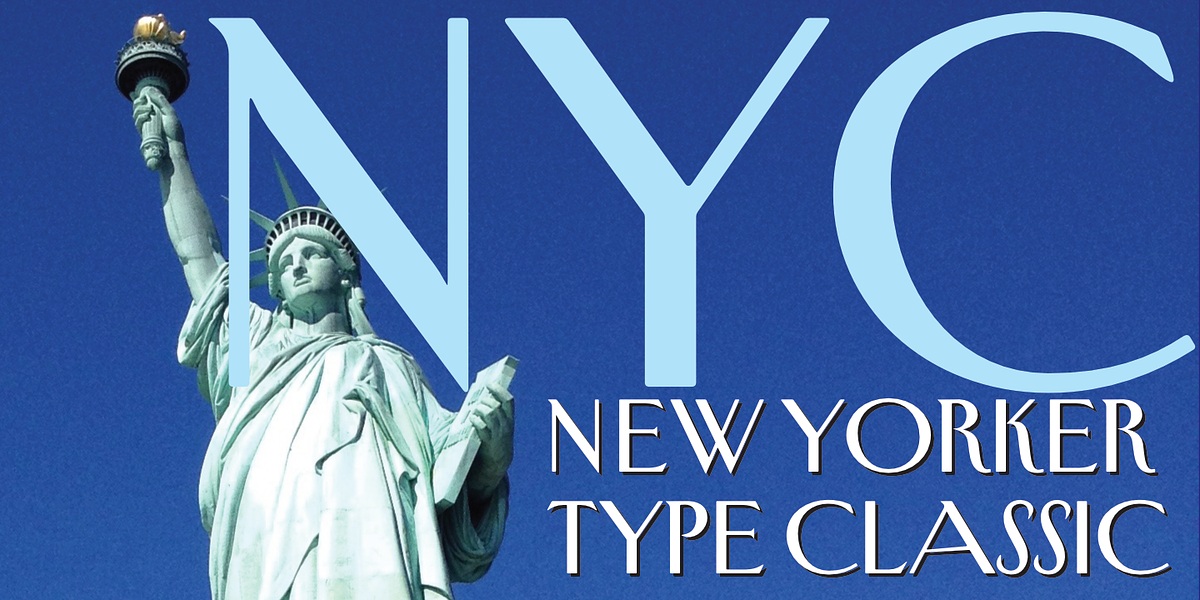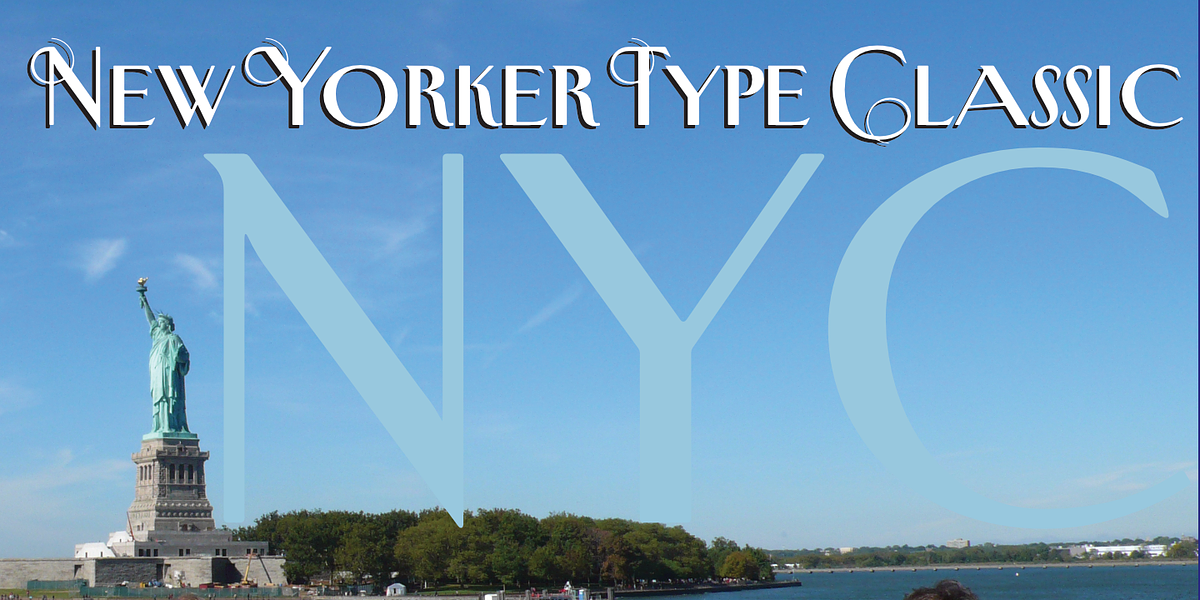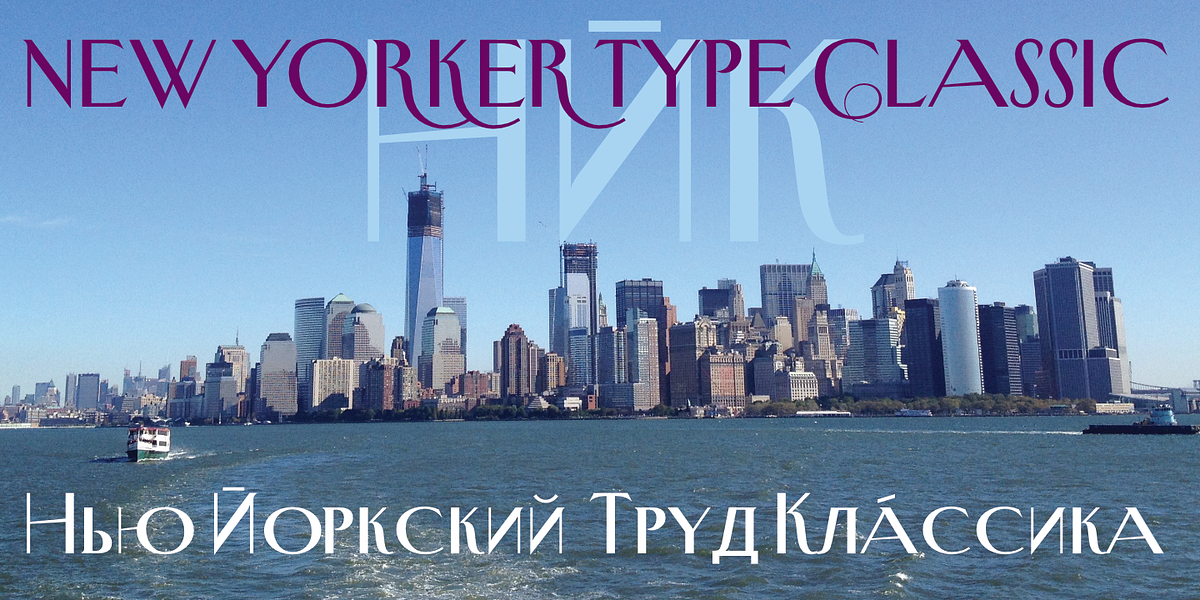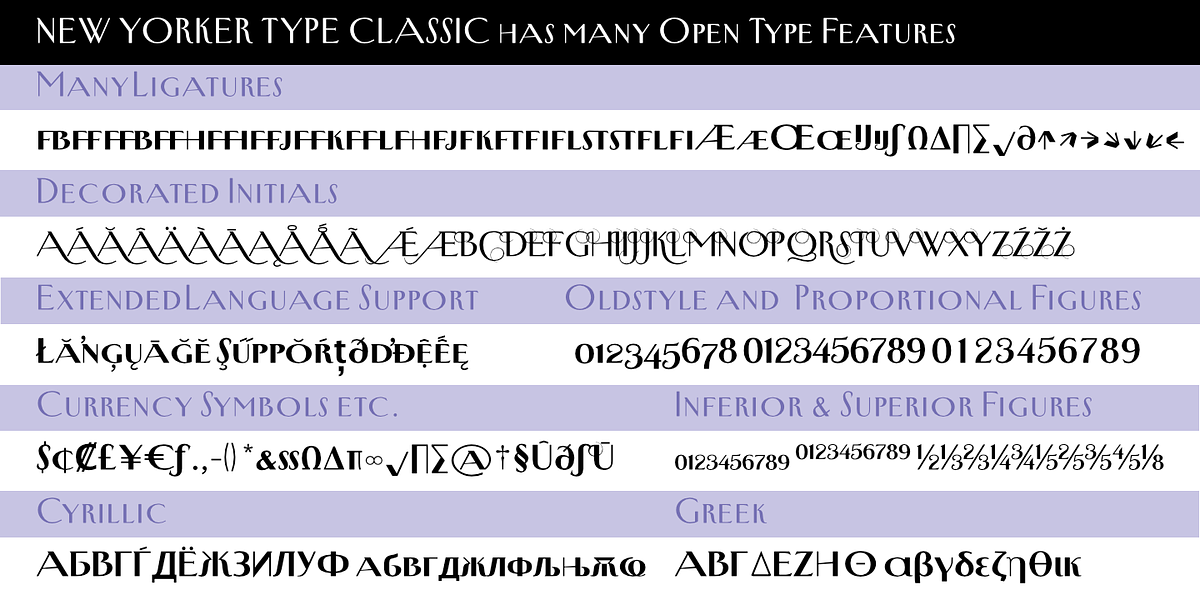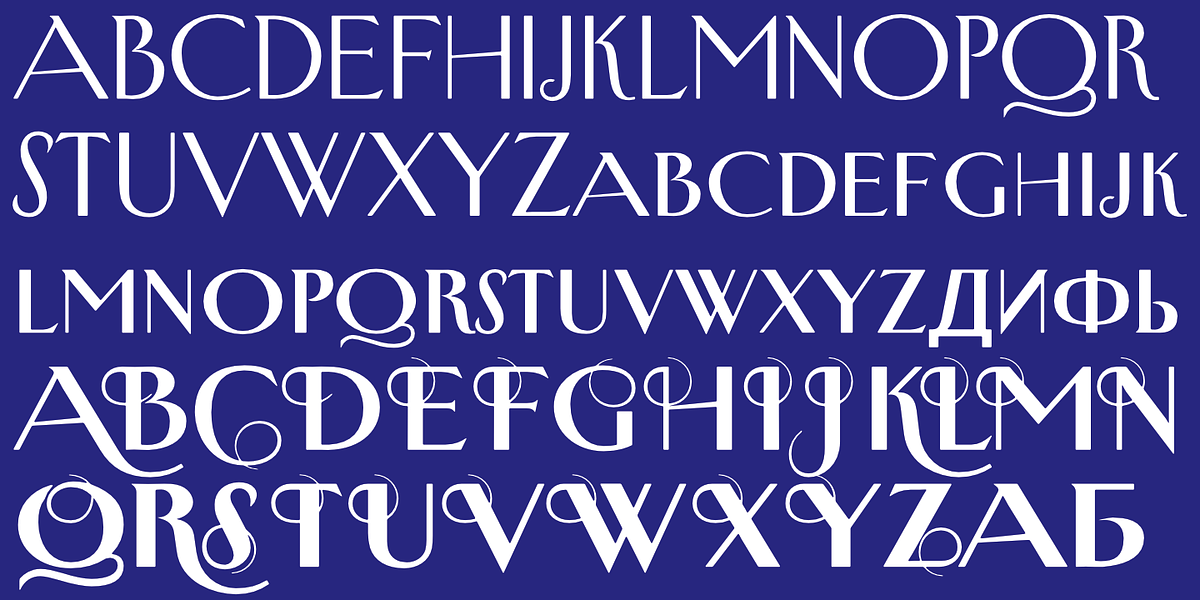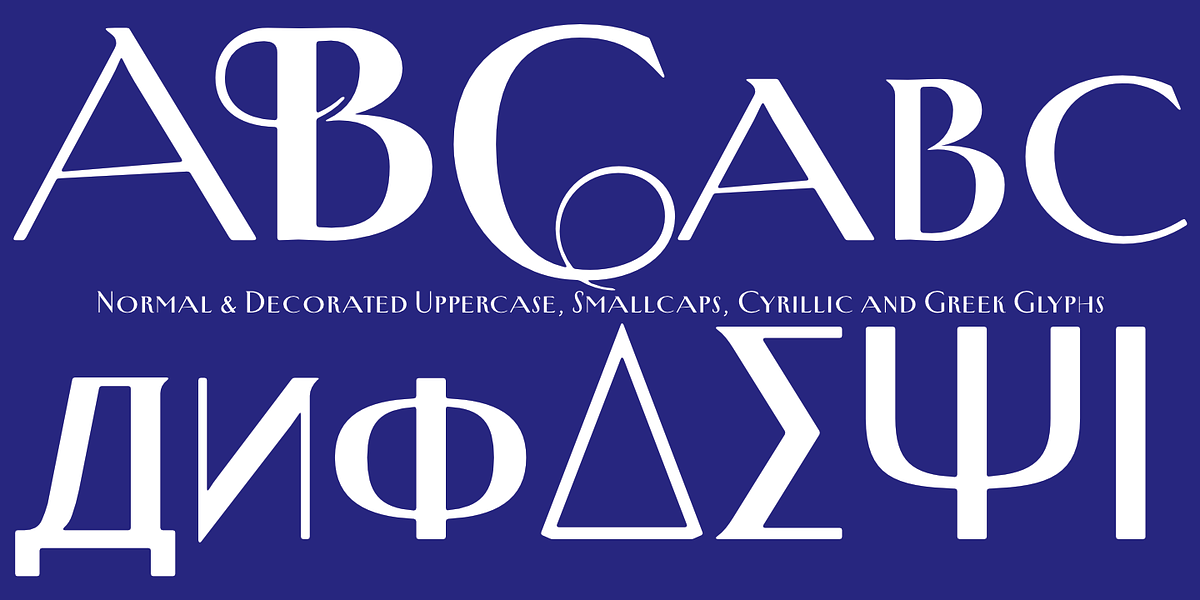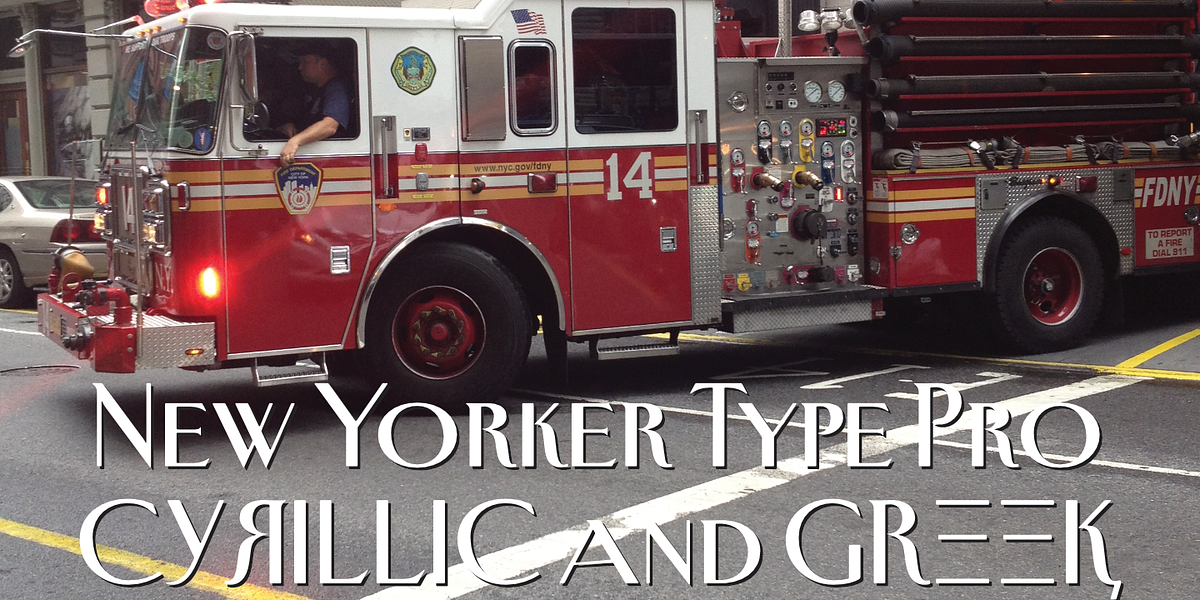
New Yorker Type Classic
New-Yorker-Type is a display serif typeface inspired by the font used in the New Yorker magazine, originally designed by Rea Irvin. It was meticulously redrawn by Gert Wiescher in 1985 and later updated with swash initials, Cyrillic and Greek glyphs, and numerous ligatures. The font comes in two versions: Classic with rounded corners for a more traditional look, and Pro with pointed serifs for a contemporary feel. Both versions are well-suited for headlines, posters, and branding materials.